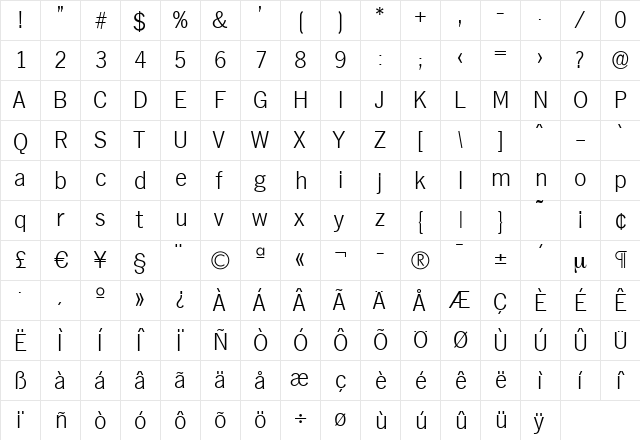
StephenBecker-ExtraLight Regular
Design Context for StephenBecker-ExtraLight Typeface
StephenBecker-ExtraLight is a composed and adaptable typeface that performs quietly and consistently across a wide range of design contexts. Its slender proportions lend an understated elegance to any composition.